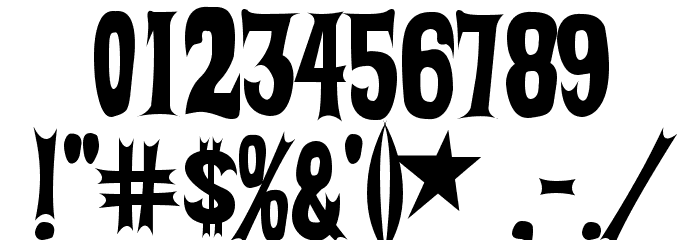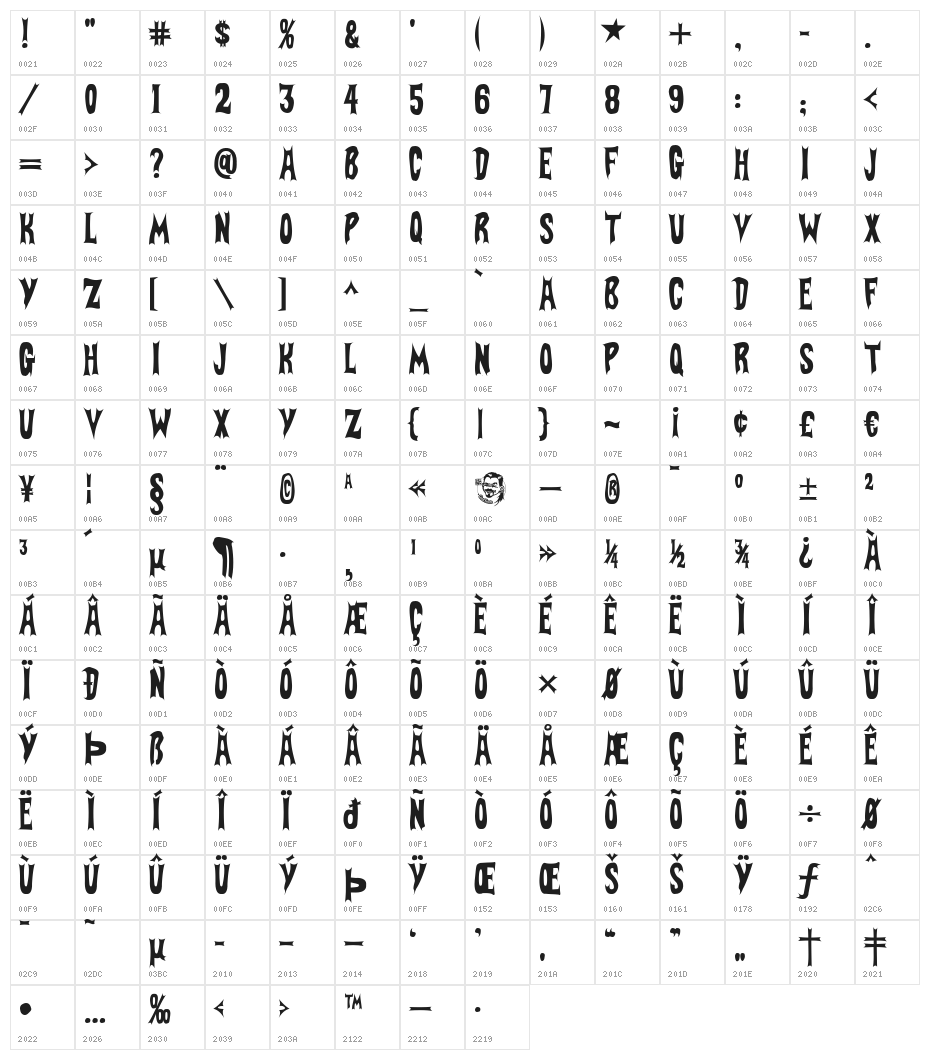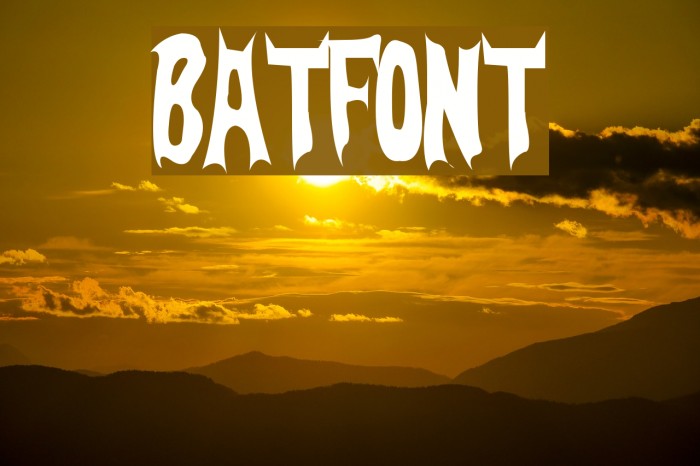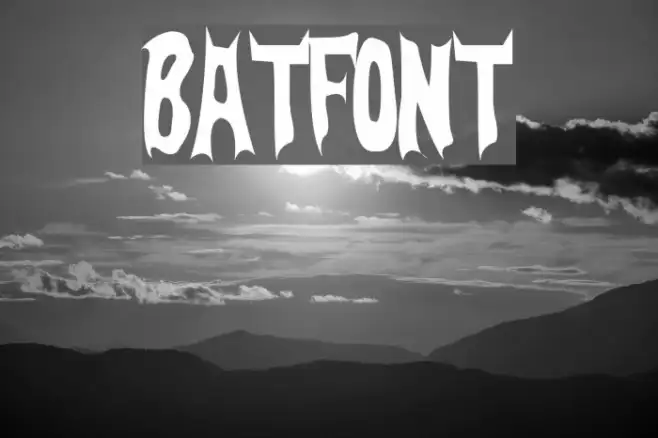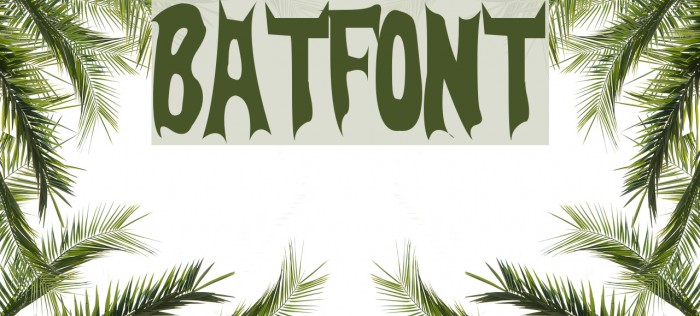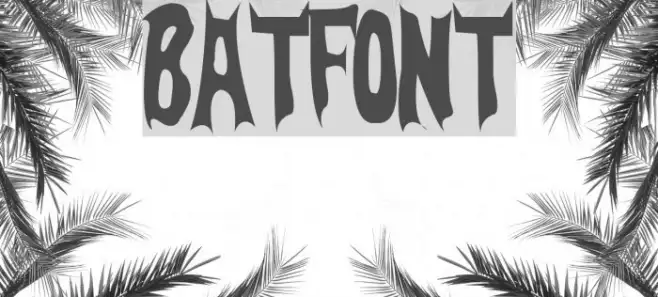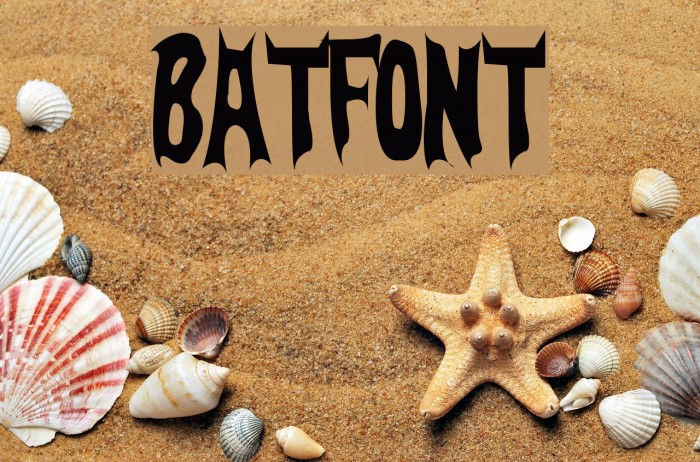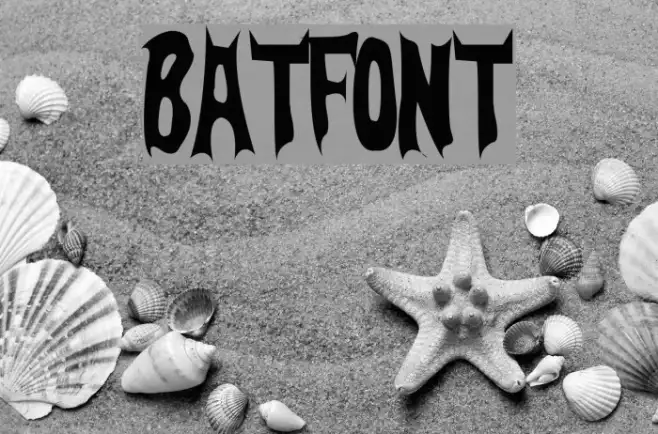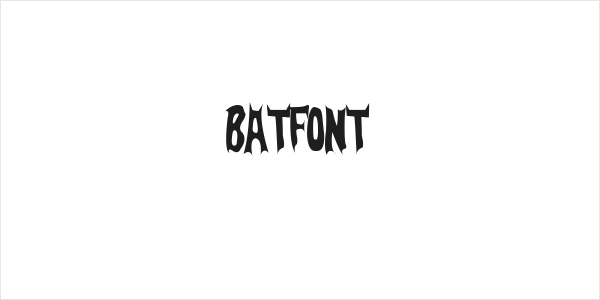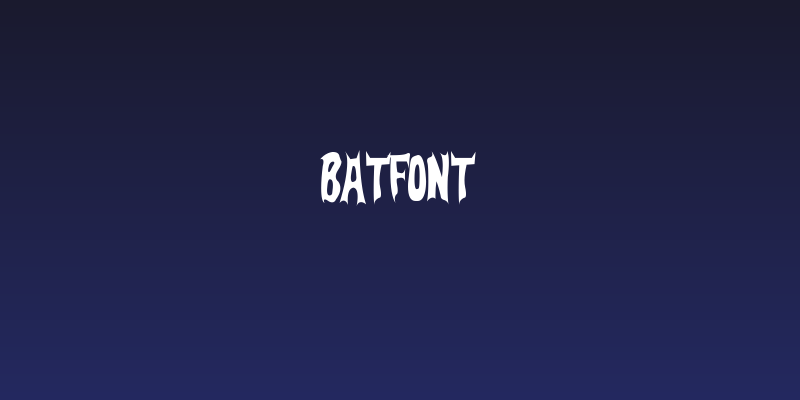
BatFont Font
BatFont Description
This font features a bold and dramatic style with sharp, angular edges reminiscent of bat wings. The characters are highly stylized, creating a sense of movement and energy. The uppercase letters are particularly striking, with exaggerated serifs and a gothic influence. The numbers and special characters maintain the same boldness and unique flair, making the font suitable for attention-grabbing designs. The overall appearance is both playful and slightly eerie, perfect for themes that require a touch of the supernatural or whimsical.
| Overall Style | Gothic, Playful, Eerie |
| Use Case | Headlines, Posters, Logos |
| Proposed Projects | Ideal for Halloween-themed designs, horror movie posters, comic book titles, or any project needing a spooky, eye-catching typeface. |